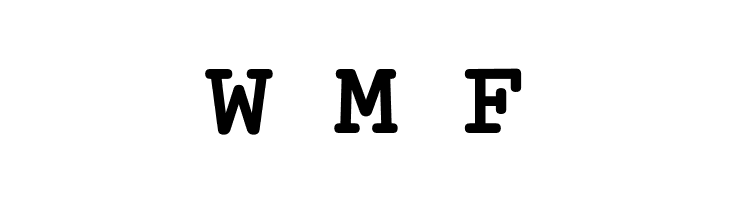
Mechanical Bold Font
A bold, slab serif font with strong, block-like serifs and consistent weight.
Mechanical Font
A bold, slab serif font with a mechanical and structured design.
Mechanical Bold Extended Font
A bold, extended font with a mechanical and industrial aesthetic.
Mechanical Condensed Font
A mechanical, condensed font with monospaced, uniform strokes and clear legibility.
Mechanical Bold Condensed Font
A bold, condensed font with a mechanical and utilitarian style.
Mechanical Extended Font
A robust, mechanical font with extended letterforms and subtle serifs.
Mechanical Bold Extended Oblique Font
A bold, extended, and oblique font with a mechanical precision and modern appeal.
Mechanical Oblique Font
A modern, oblique font with a mechanical style and consistent stroke width.
Mechanical Bold Outline Font
A bold, outlined mechanical font with a strong, industrial style.
Mechanical Bold Oblique Font
A bold, oblique serif font with a mechanical and dynamic style.
Mechanical Outline Font
A bold, mechanical outline font with a modern industrial feel.
Mechanical Bold Condensed Oblique Font
A bold, condensed, and oblique font with a modern mechanical style.
Mechanical Extended Oblique Font
An oblique, extended font with a mechanical and industrial style.
Mechanical Bold Outline Oblique Font
Mechanical Condensed Oblique Font